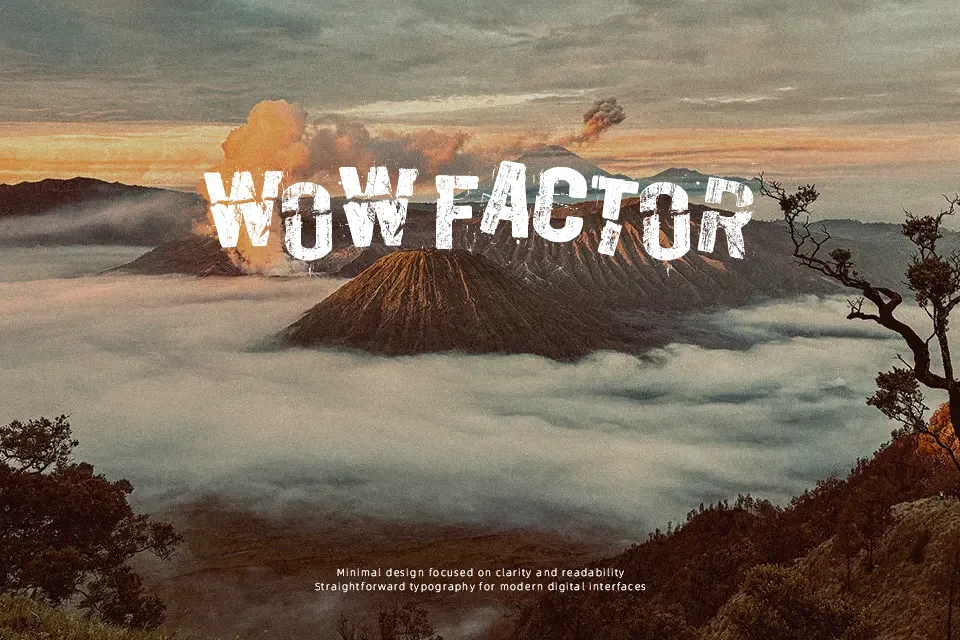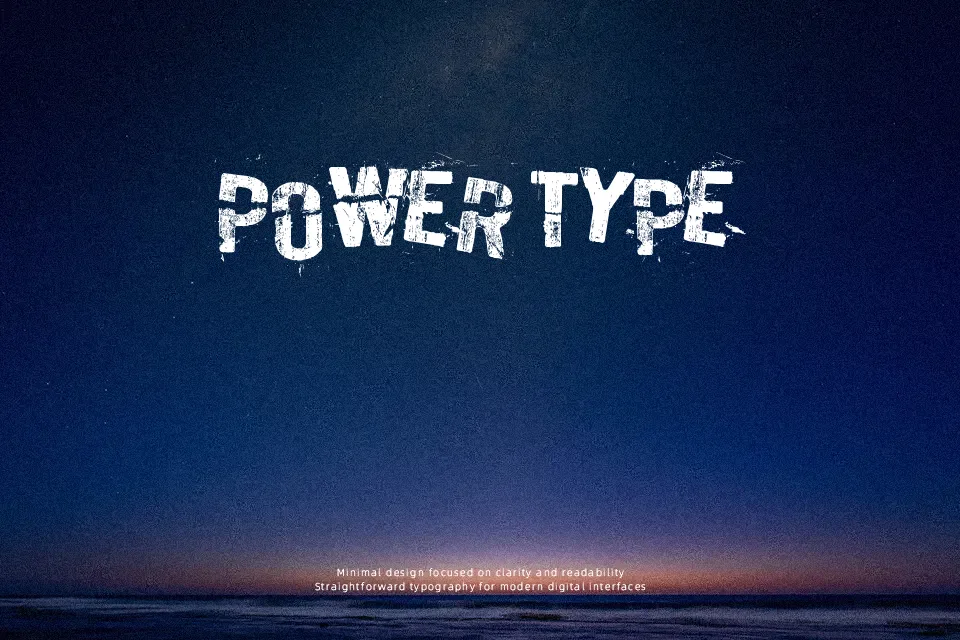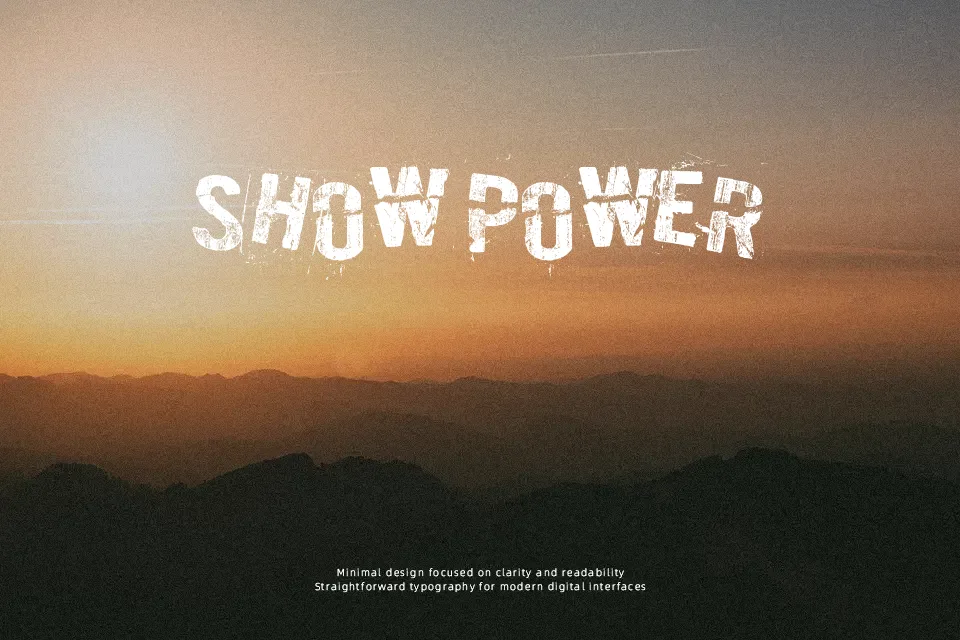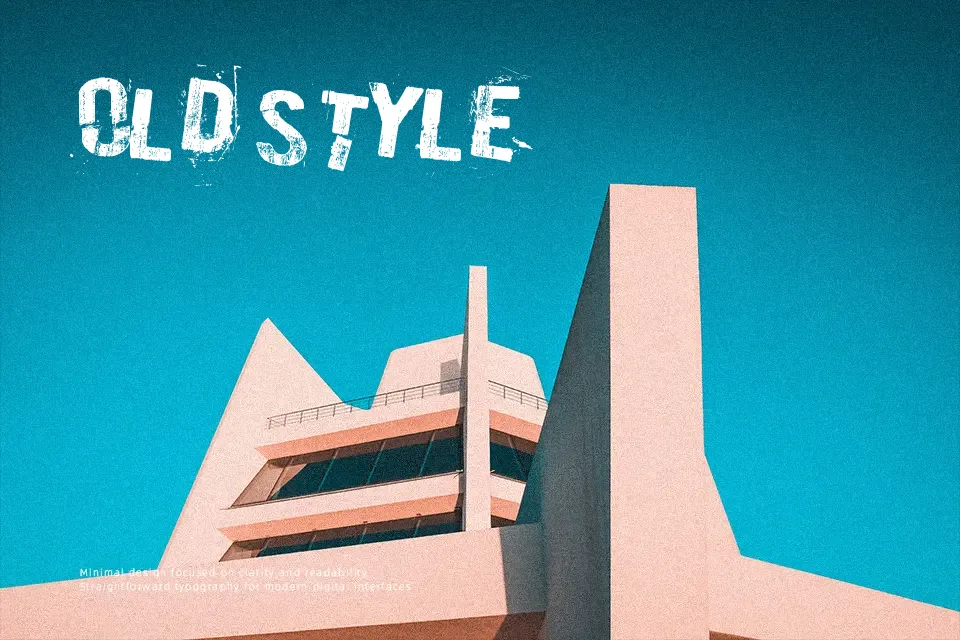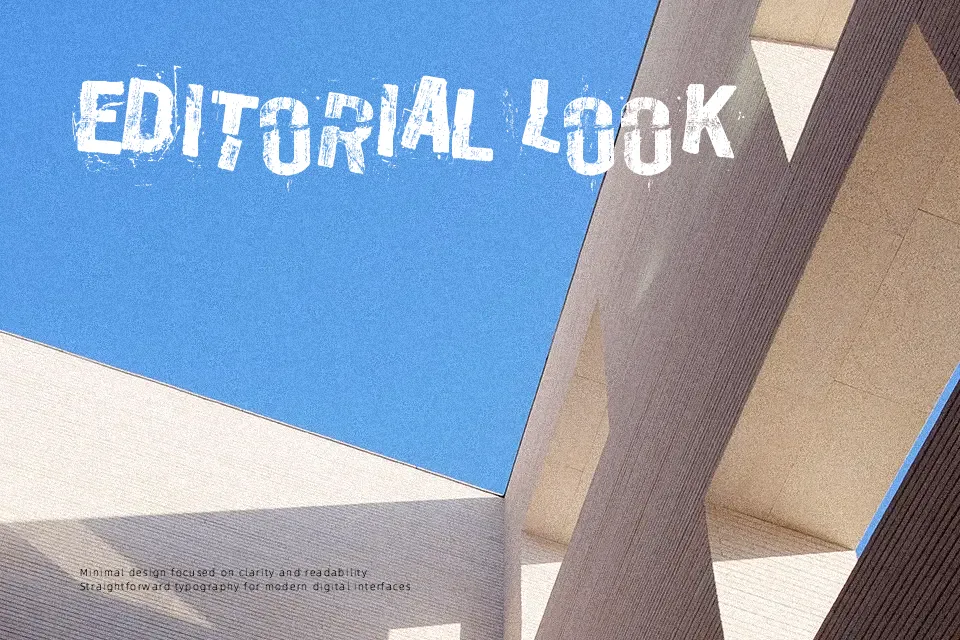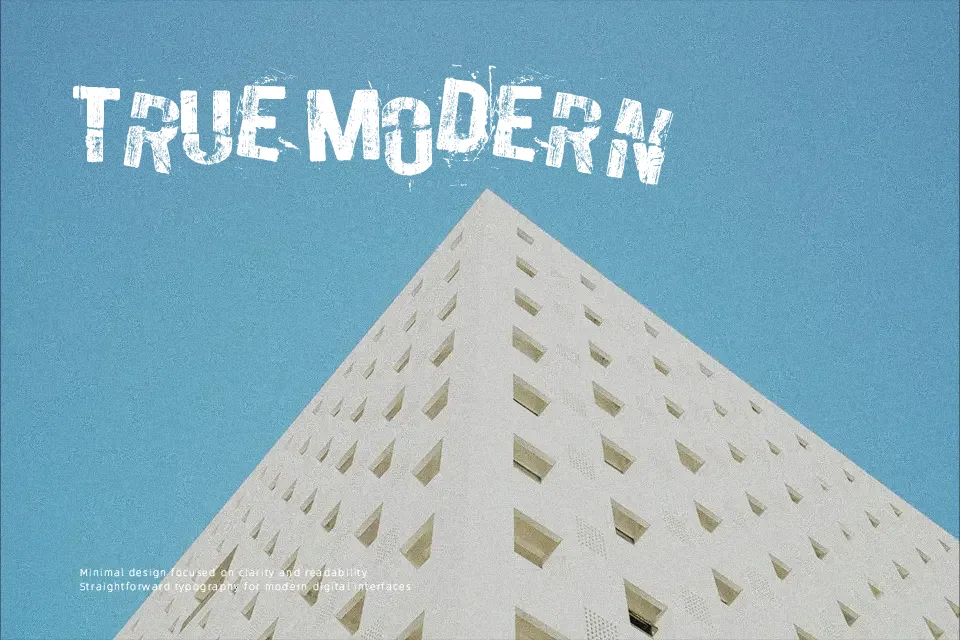
Burn out, fade away Font
Burn out, fade away is a rough, “destroyed” display typeface built from thick, splattered strokes and irregular edges, so every letter looks battered and worn. The spacing is fairly tight and the caps dominate, which pushes the texture into one dense, noisy word shape rather than neat individual letters. It reads strongly at larger sizes, bringing a gritty, blood-splatter or street-grunge mood that works well for horror posters, metal or punk band artwork, game titles, and themed event graphics. For long paragraphs, clean corporate branding, or small UI labels, the distressed details quickly become tiring and hard to parse, so it is better kept as a headline accent than an everyday workhorse.
Horror or thriller movie posters and key art
Metal,punk,or hardcore band logos and album covers
Grunge or urban gaming titles and stream graphics
Halloween or dark event flyers and social media banners
Body text or long editorial layouts where readability matters
Minimal,corporate,or highly polished brand systems
Small UI labels,app interfaces,or dense data presentations
Formal wedding or business documents needing a refined tone
Perfect for advertising, gaming, and headline, with a bold and display style.